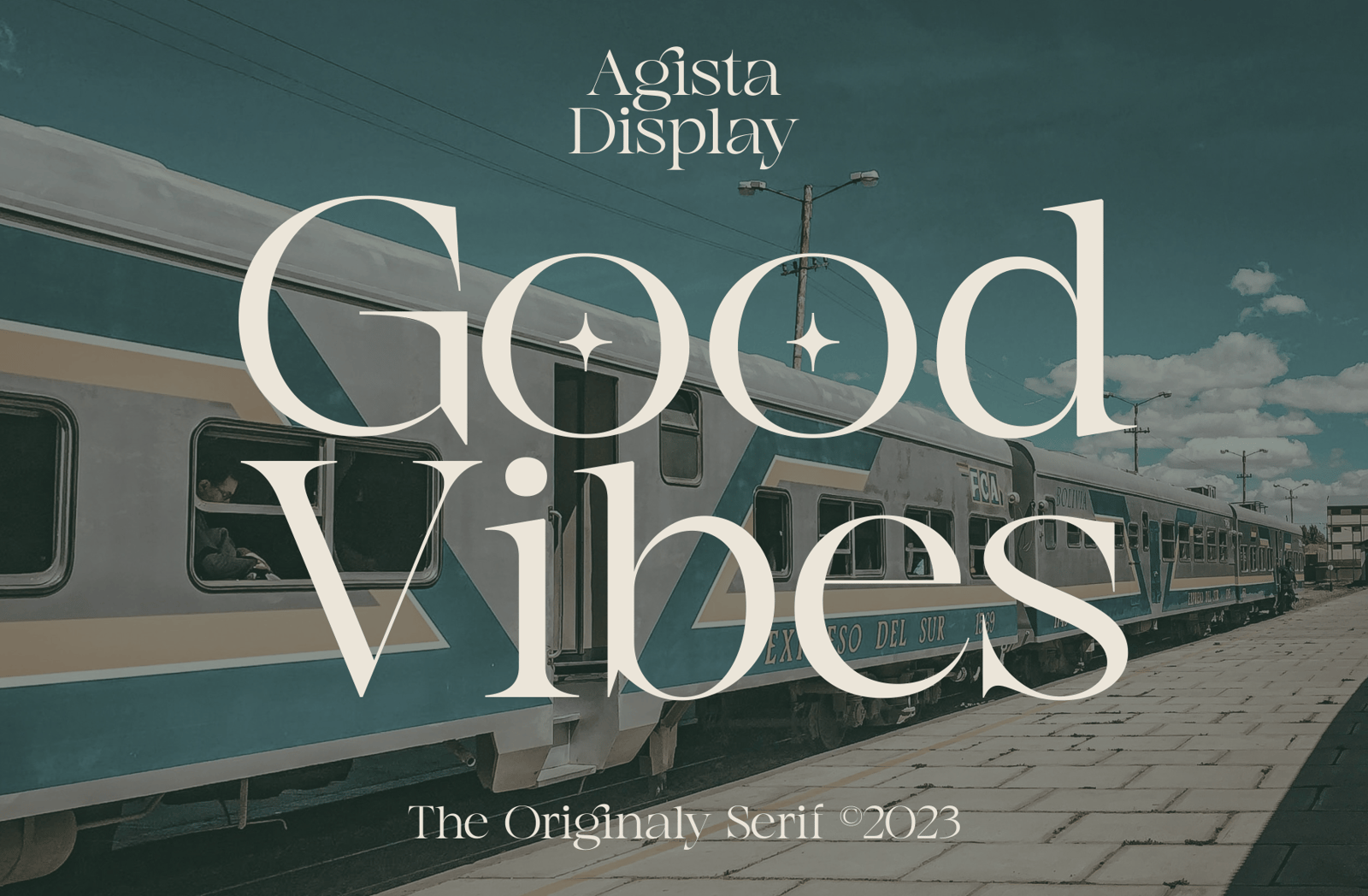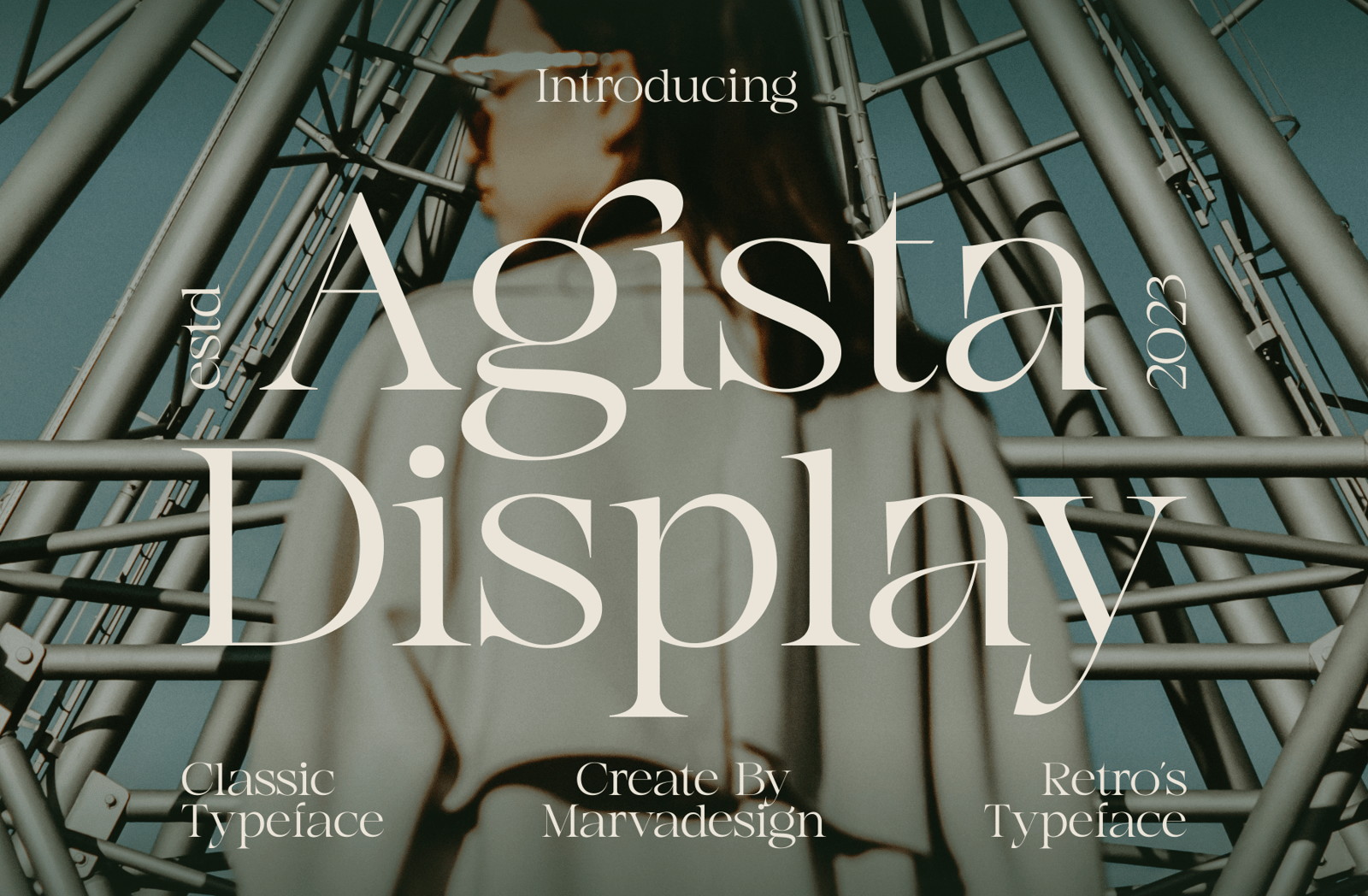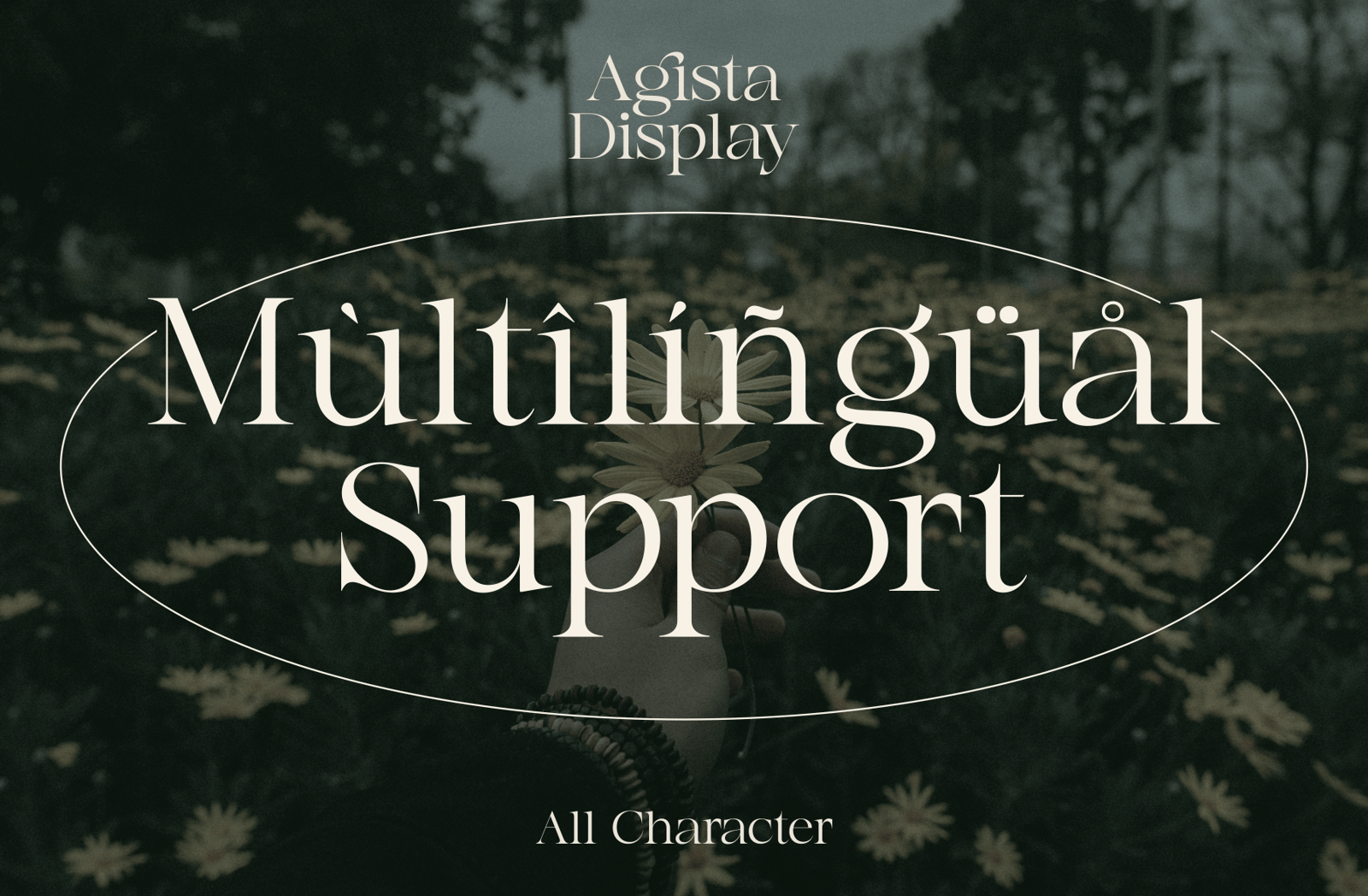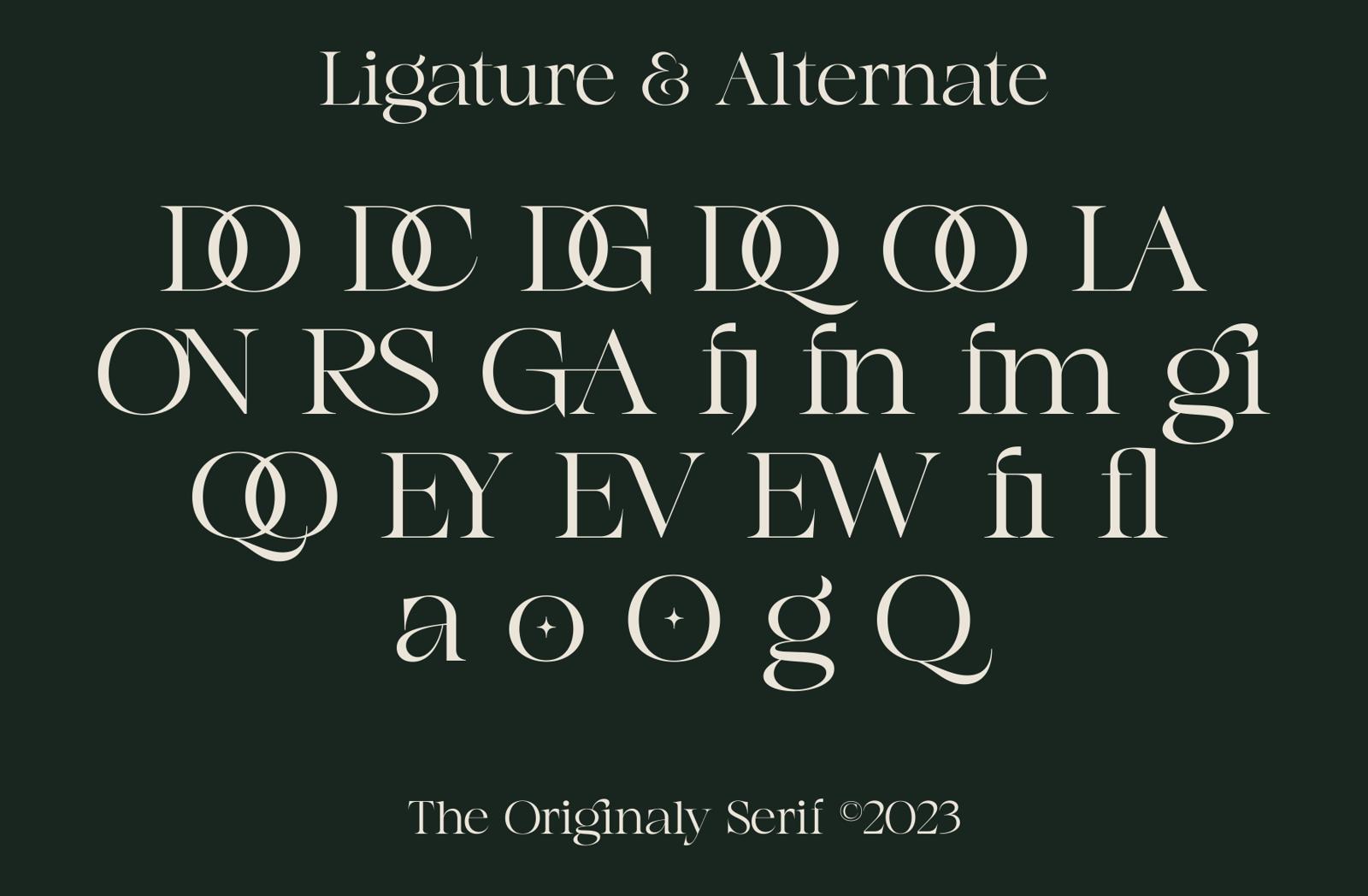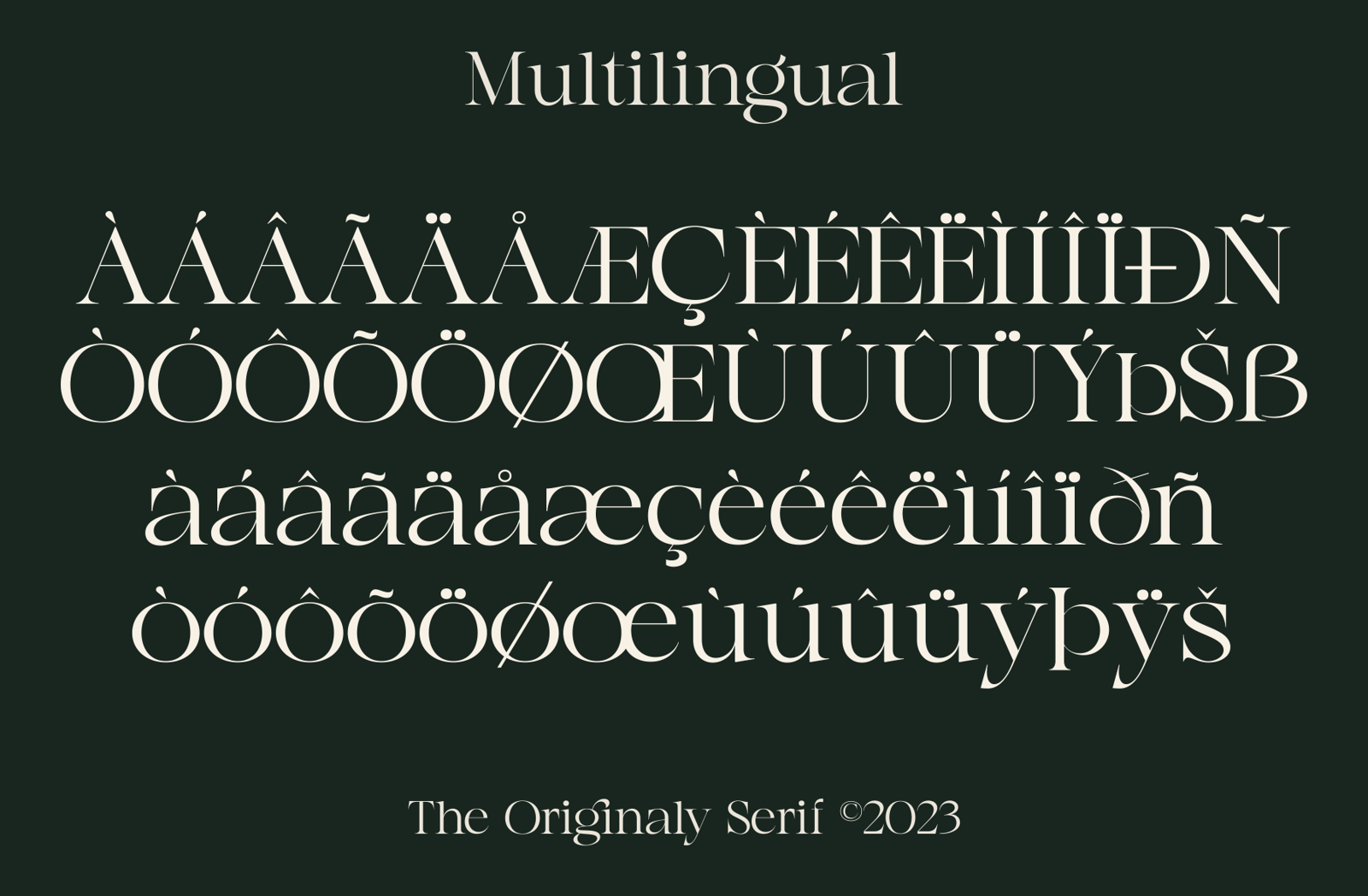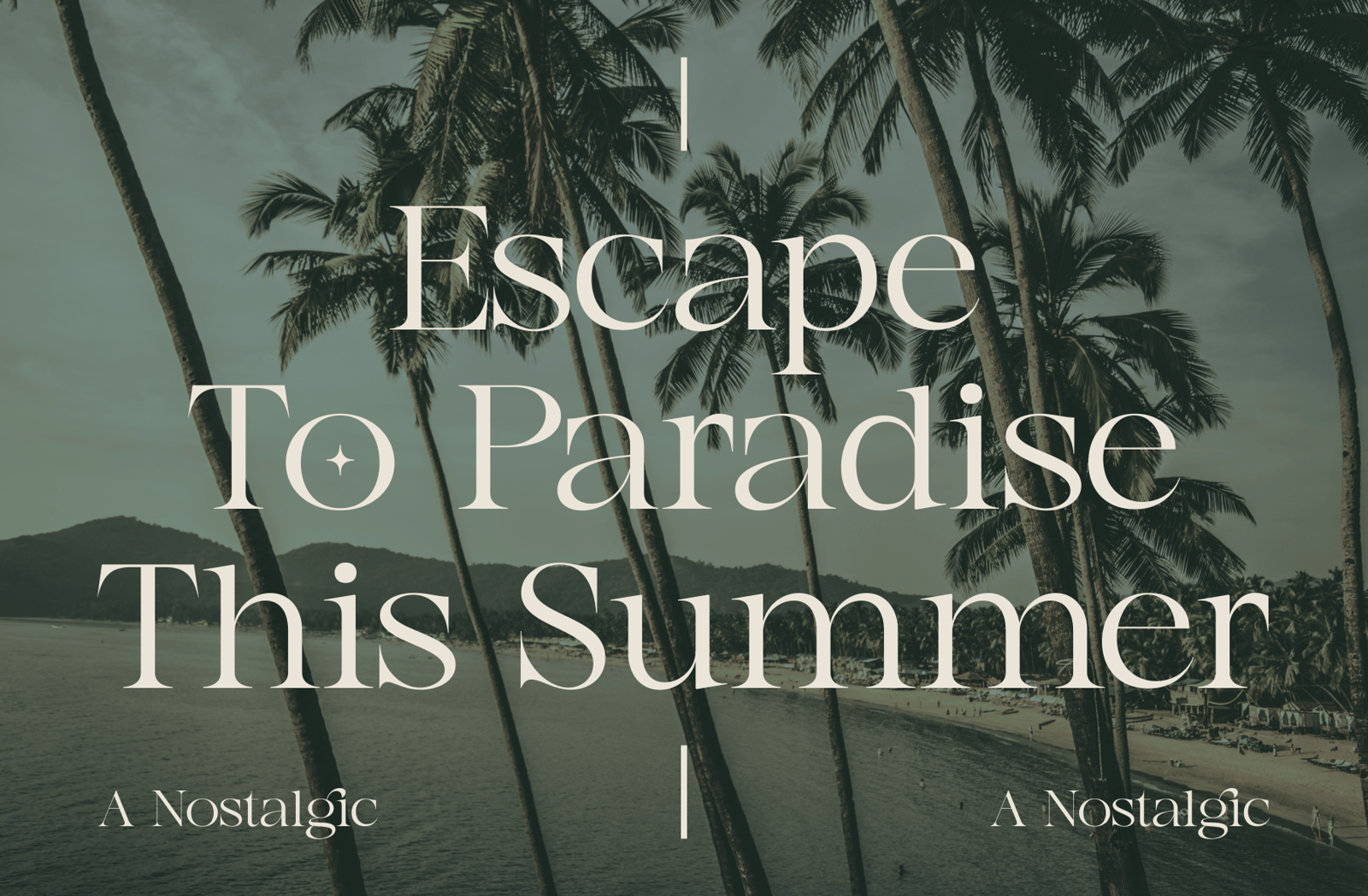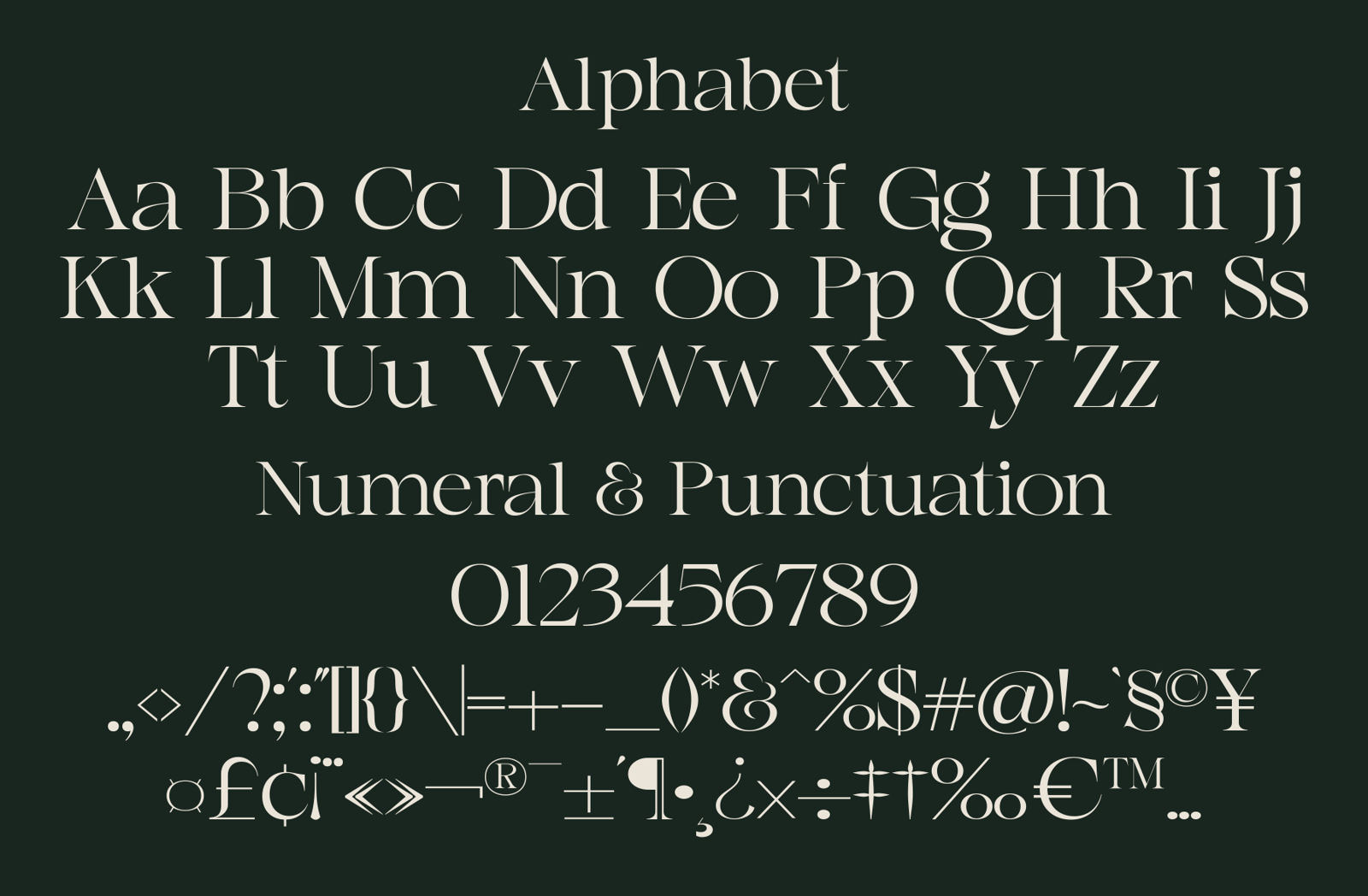
Agista Display Font
Introducing our new product **Agista Display Font** -A Classic Serif Font
**Agista Display Font** - A Classic Serif Font authentic display font. The font is suitable for any branding project like logo, Template Design, Product and many more. outstanding in a wide range of contexts.
* Uppercase
* Lowercase
* Multilingual
* Ligature
* Alternate